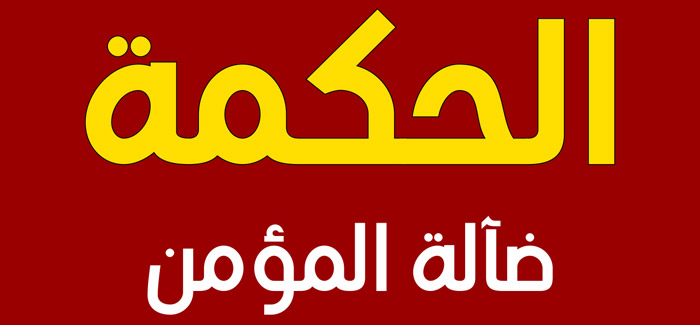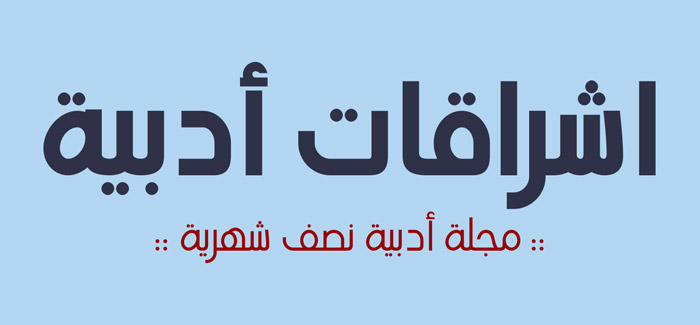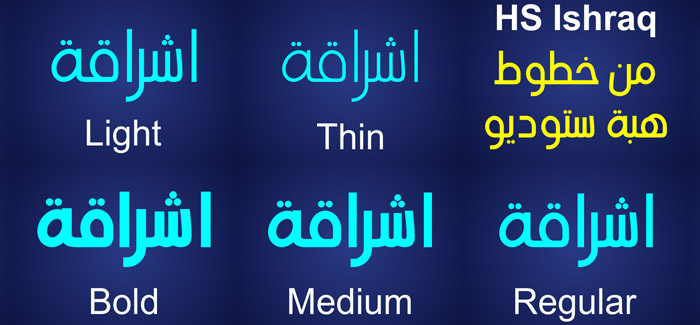
HS Ishraq font
HS Ishraq font by Hasan Abu Afash (Hiba Studio) is a font family consisting of 5 weights. It introduces a modern OpenType Arabic Typeface blending the features of Kufi and Naskh Style and noticeably having both curvy and sharp segments beside the refinements of its letters thus keeping a high degree of legibility. HS Ishraq font can be used in various designs for titles and text in modern graphic and publication projects. It supports Arabic, Persian, Urdu and Kurdish languages with five weights: Thin, Light, Regular, Medium and Bold which can enrich the library of Arabic fonts contemporary models to match then the purposes of various designs for all tastes.
Hasan Abu Afash is an Arabic type designer and typographer, founder of HibaStudio, a bilingual website (Arabic and English) featuring Arabic calligraphy, Arabic type design and typography launched in 2007 from Gaza, Palestine. Hiba Studio features his Arabic fonts such as Hasan Elham, Amal, Manal, Aya, Enas, Ghada and Noor. See also his HS Albadr font, HS Almohandis font, HS Alhandasi font, HS Alkitab font